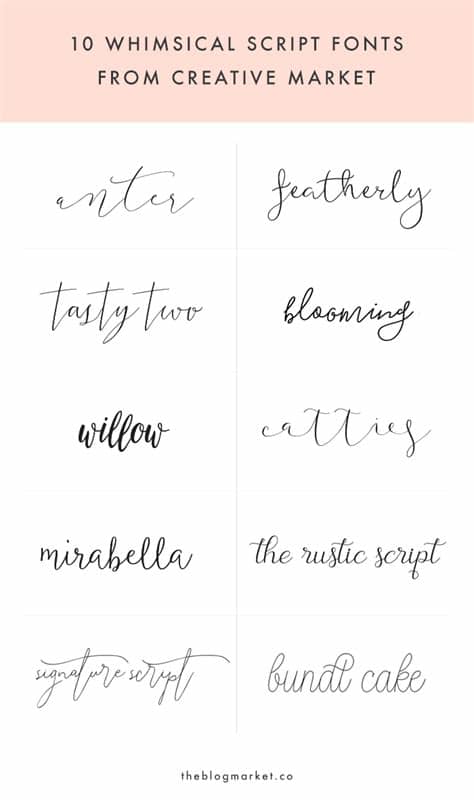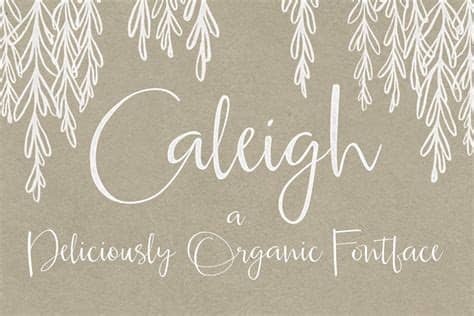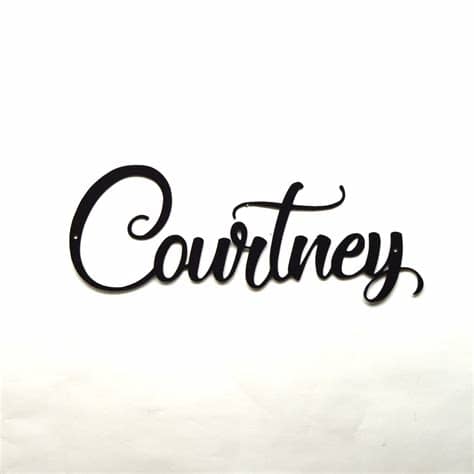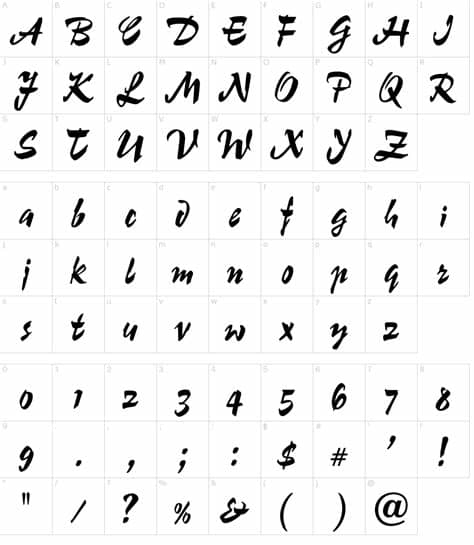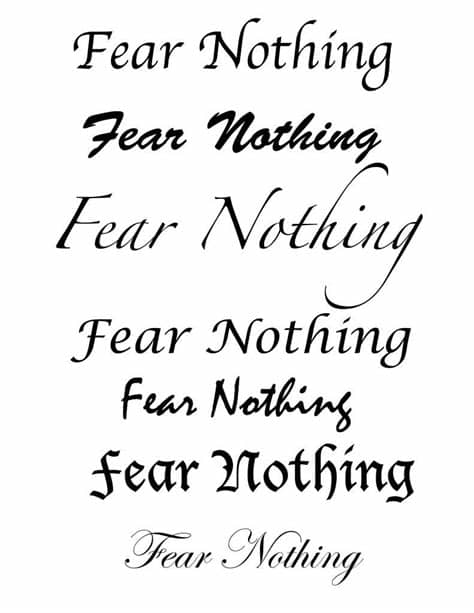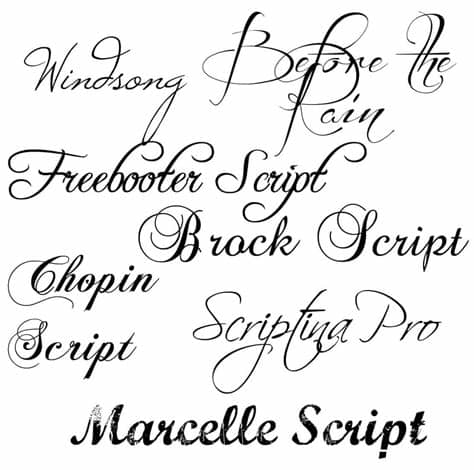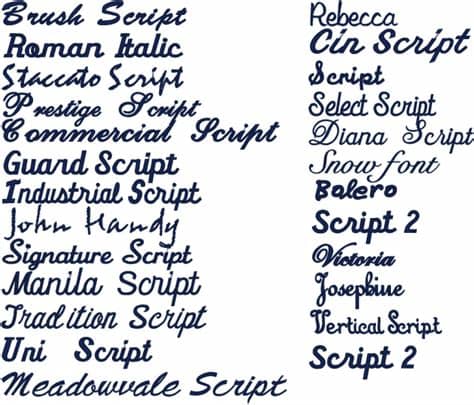
Script Text Font Name : Free handwritten font File Page 1 - Newdesignfile.com / All the different font names belong to one of the generic font brush script mt lucida handwriting.. Navigate through our enormous font catalogue of all types and styles. Cookies are small text files stored by your web browser when you use websites. They exist within the same genre as handwritten. Fonts online to create a text, an inscription with the effect of beautiful logo. After the color, the font is probably the most basic property of a page.
Fonts included in feature on demand (fod) packages. This is a generator for text fonts of the cool variety. Script typefaces are based upon the varied and often fluid stroke created by handwriting, pretty much like the cursive fonts just typically more elegant. Tiny small medium large extreme. As the name implies, script fonts will appear as if drawn by hand with a brush, marker, or pen. If you are running windows10, you can i went through the file, and found the problem is the font you want to use actually doesn't have an independent name. But the current name gets the point across, and it's nice. Archive of freely downloadable fonts.
As the name implies, script fonts will appear as if drawn by hand with a brush, marker, or pen.
Font name newest most downloads. They are organized into highly regular formal types similar to cursive writing and looser, more casual scripts. As the name implies, script fonts will appear as if drawn by hand with a brush, marker, or pen. Navigate through our enormous font catalogue of all types and styles. By using one of them, you will greatly improve your web design and content readability. Sign up and start building your font collection. In this article, we'll give you the 20 best html fonts! Cookies are small text files stored by your web browser when you use websites. The text that follows will remain changed until you close with the </font> tag. Script fonts are usually decorative in nature and most should be used like one would use a display font, which is to make a statement rather than set text. Fantasy fonts are decorative/playful fonts. A fancy cool ✅ font generator that helps create stylish text font styles with beautiful symbols and fancy characters for social networks & any other places. You can specify the color that you want by either the color name or hexadecimal code for that color.
Demo donationware free free for personal use public domain, gpl, ofl shareware. Google fonts now supports variable fonts. Html fonts play a big role in a website's appearance and readability. Free generator of cool text logos with different font effects and styles, create an inscription for a banner, ads, video preview in hd quality. But the current name gets the point across, and it's nice.
Since not all fonts are available on all computers (there are thousands of fonts, and most are not free), css provides a system of. These packages are designed around the different scripts that fonts are primarily intended to support, and most are installed automatically by windows update when the associated languages are enabled in. The font's name is postscript and not the font). They exist within the same genre as handwritten. But the current name gets the point across, and it's nice. They are organized into highly regular formal types similar to cursive writing and looser, more casual scripts. Font catalog with sorting by alphabetical, by category, by tag or by popularity. As the name implies, script fonts will appear as if drawn by hand with a brush, marker, or pen.
It converts a normal text to different free cool fonts styles, such as tattoo fonts, calligraphy fonts, web script fonts, cursive fonts, handwriting.
But the current name gets the point across, and it's nice. This is a generator for text fonts of the cool variety. The best selection of script fonts for windows and macintosh. They exist within the same genre as handwritten. It's useful for generating instagram bio symbols to make so really, if i were to be really pedantic, this site should be called pseudo instagram fonts. Archive of freely downloadable fonts. On this page i won't show any tricks, but i will show the range of font variations that css allows. There are also other technologies that can be used for similar purposes like html5 local storage and local shared objects, web beacons, and embedded scripts. The text that follows will remain changed until you close with the </font> tag. Free generator of cool text logos with different font effects and styles, create an inscription for a banner, ads, video preview in hd quality. As the name implies, script fonts will appear as if drawn by hand with a brush, marker, or pen. Which however has failed for some fonts i tested (say works 90%). Html fonts play a big role in a website's appearance and readability.